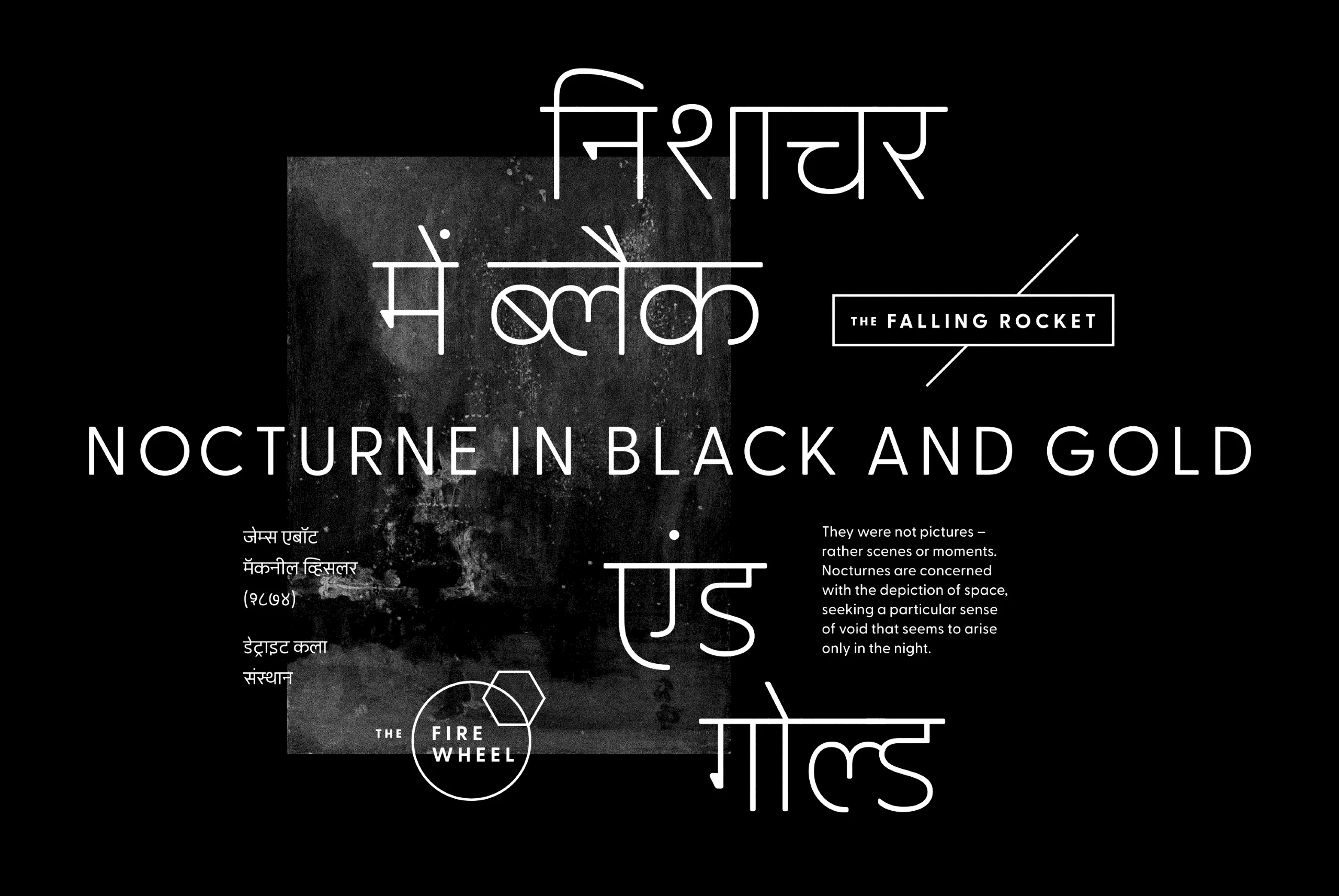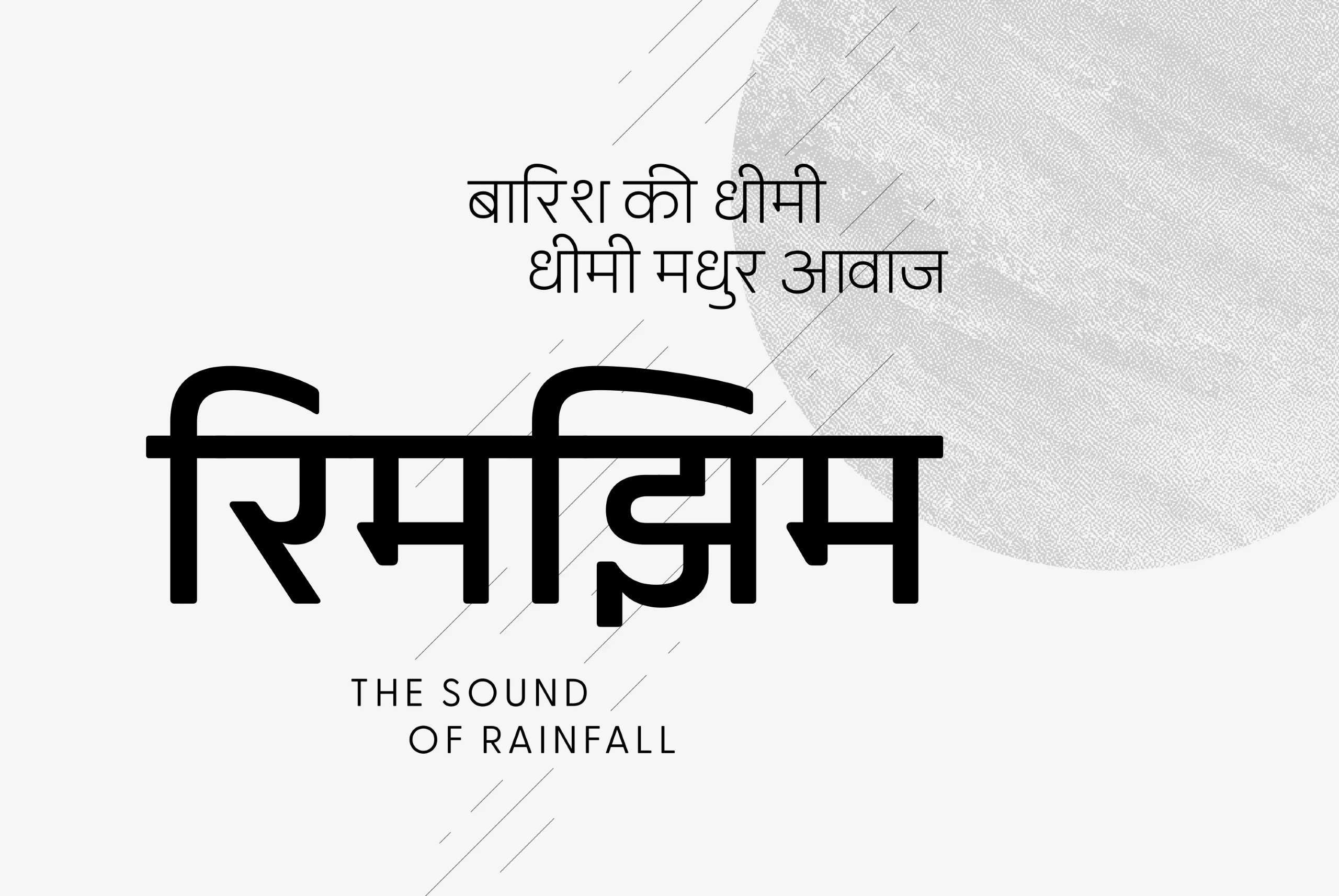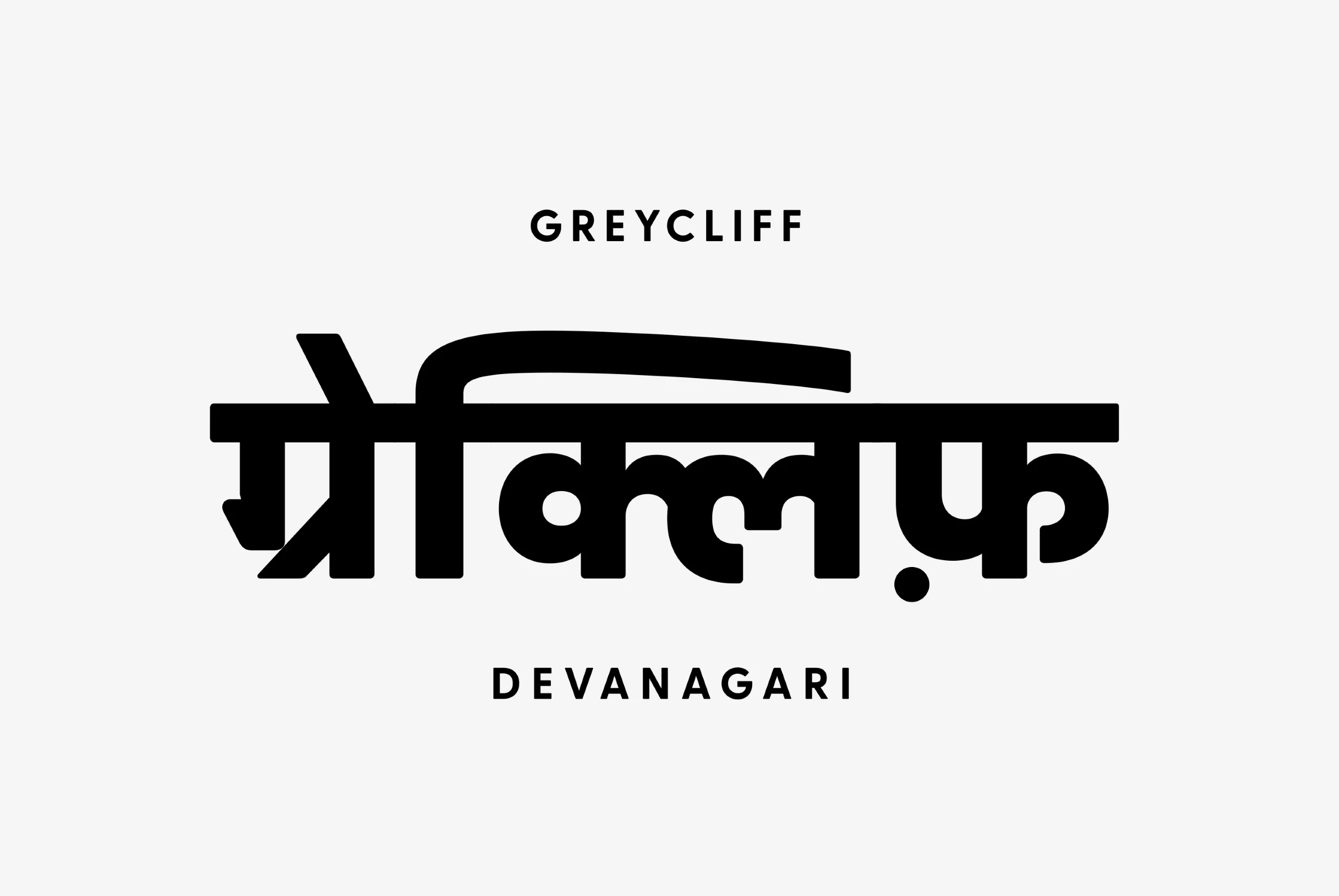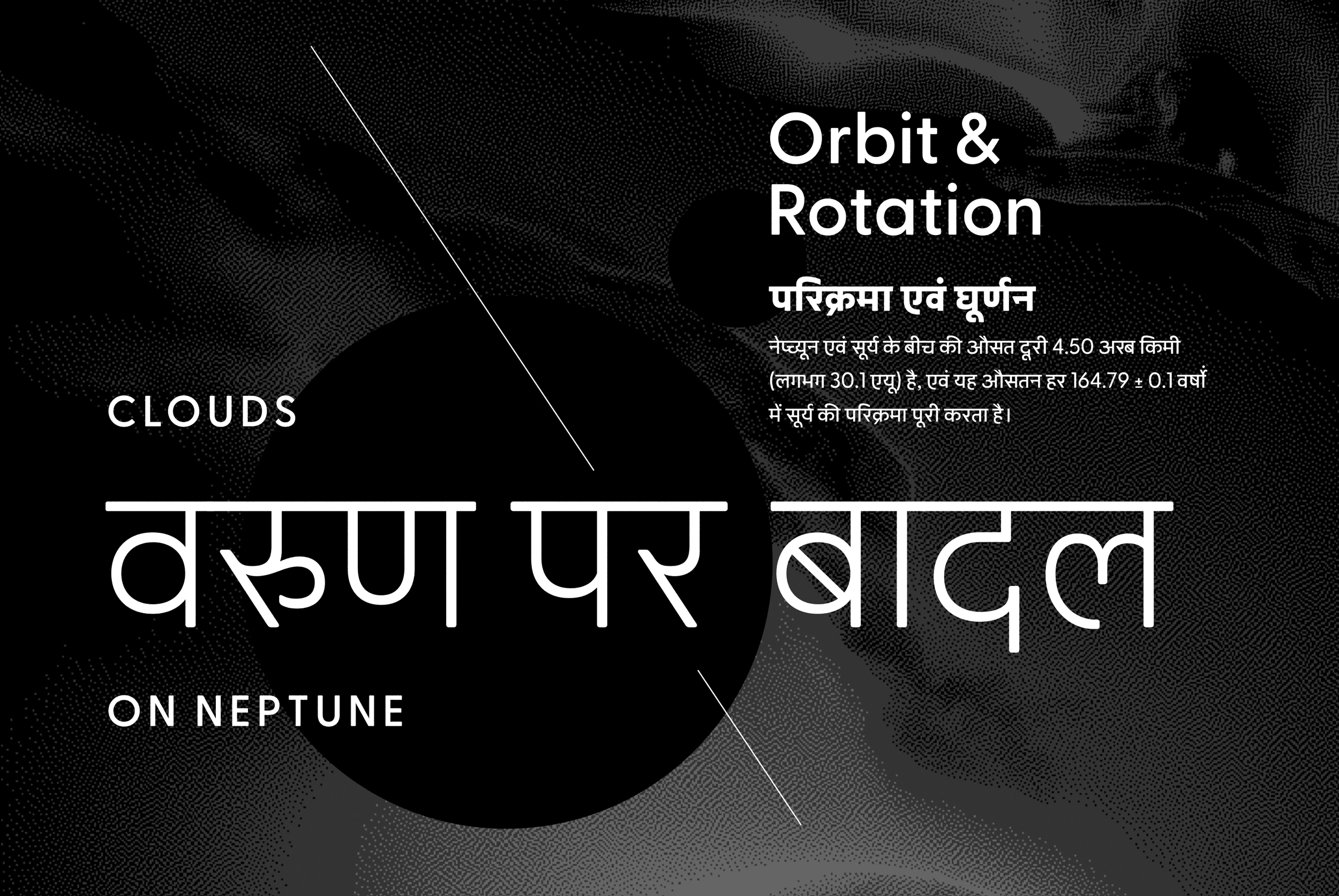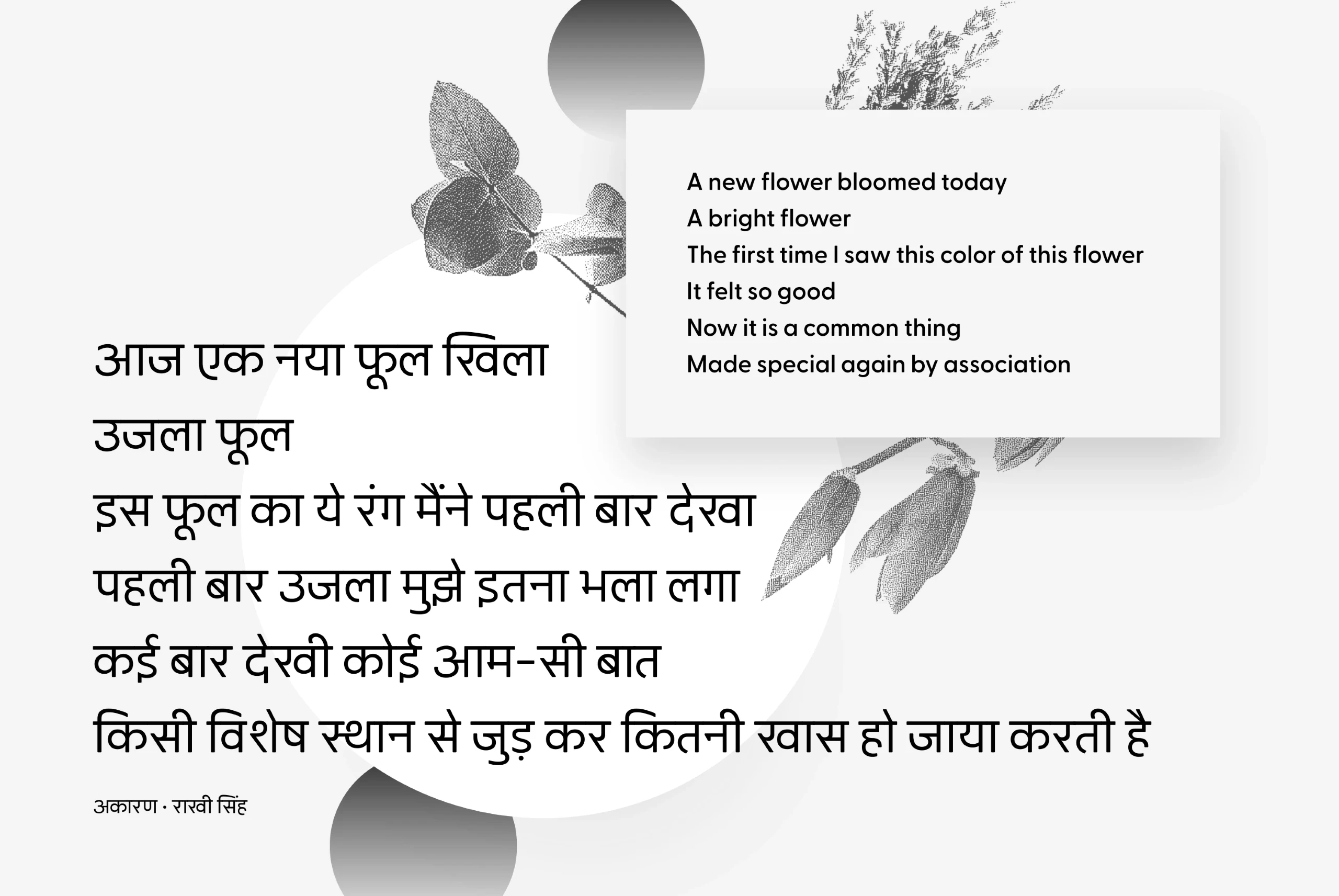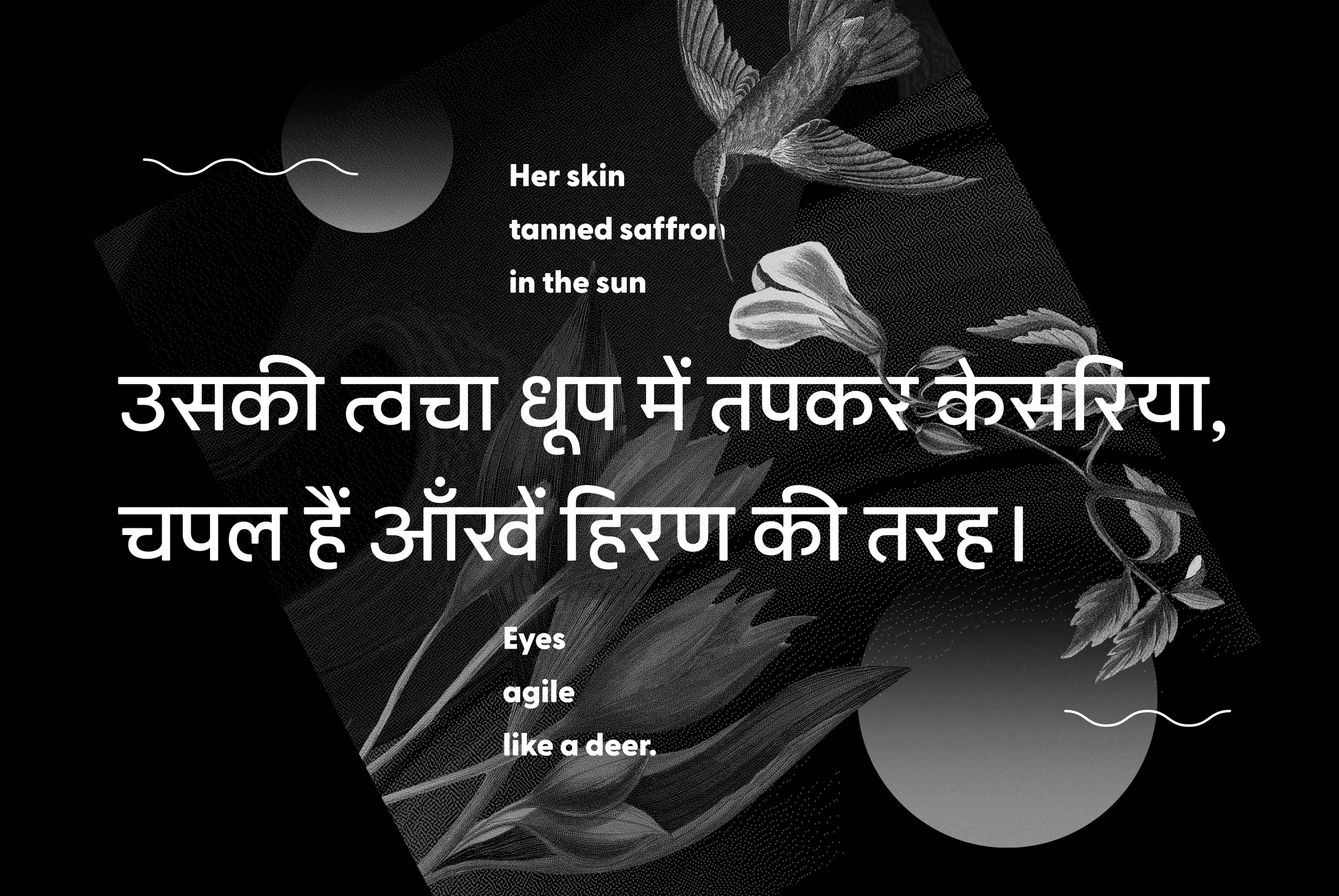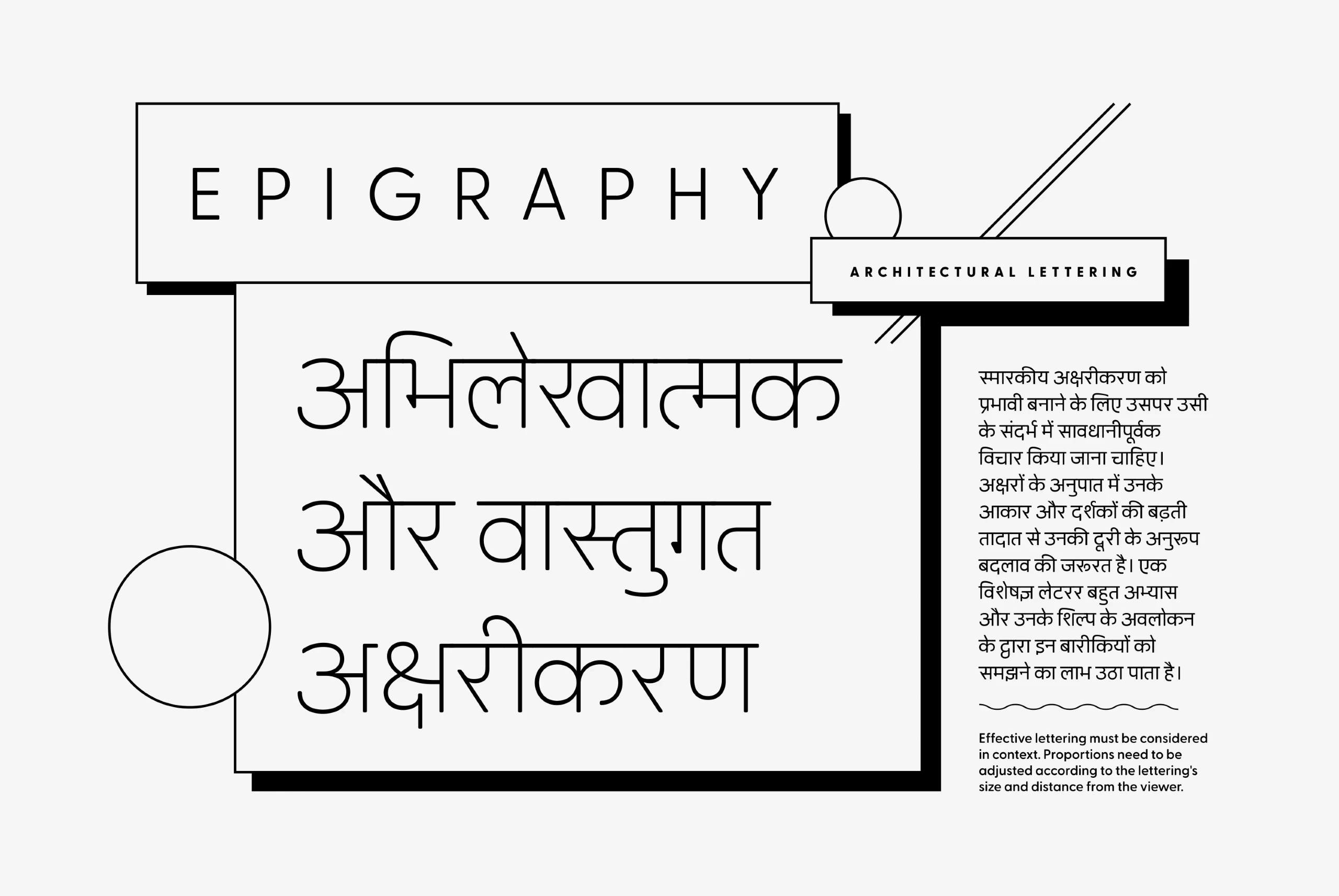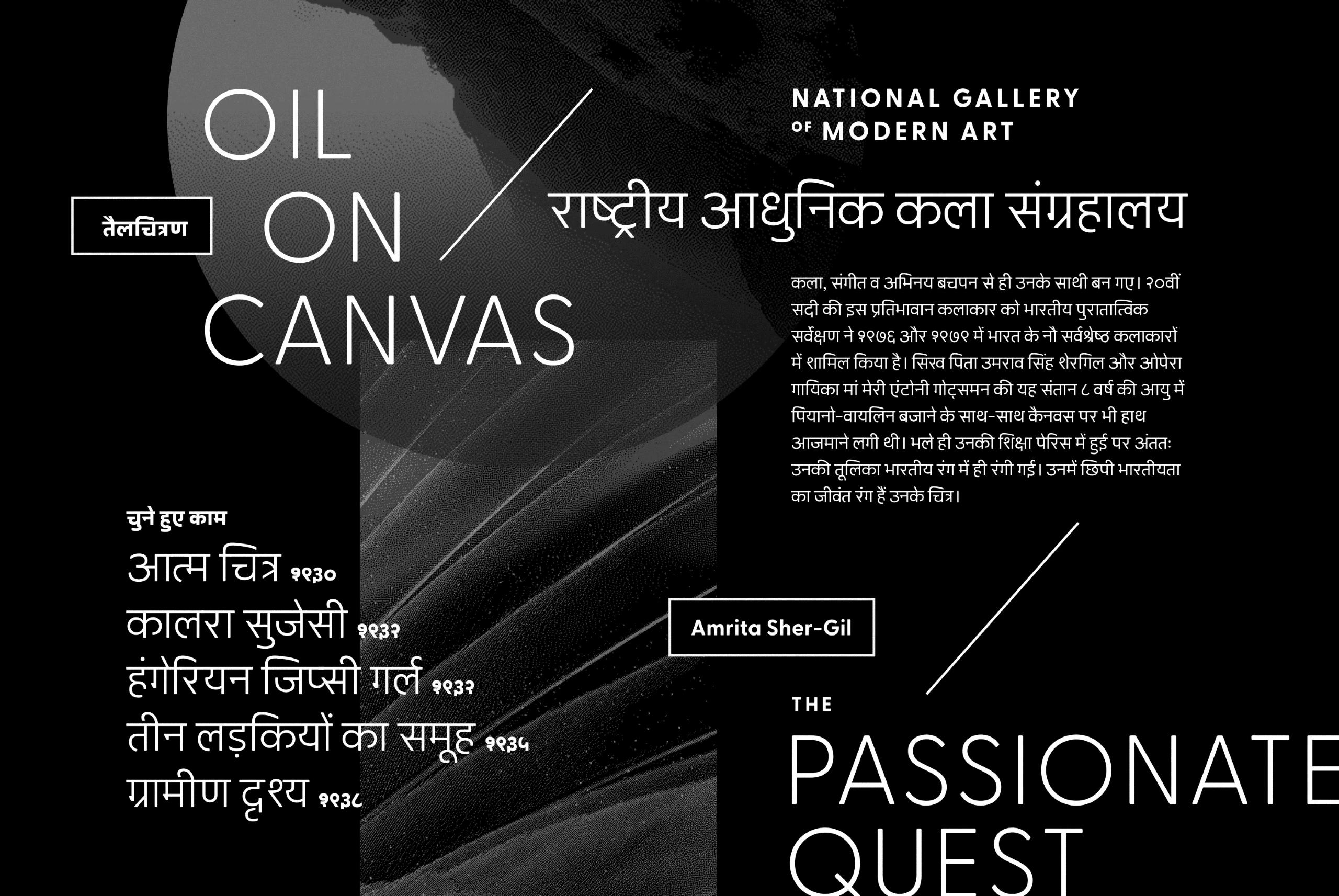
Greycliff Devanagari
Greycliff Devanagari CF is an adaptation of the original Greycliff typeface to the Devanagari script. The geometric, monolinear design of the original sans serif is recreated in full, allowing for cohesive multilingual applications between English and Hindi, Marathi, Nepali, Sanskrit, and more.
nine Weights in Latin & Hindi • Marathi • Nepali • Sanskrit Script